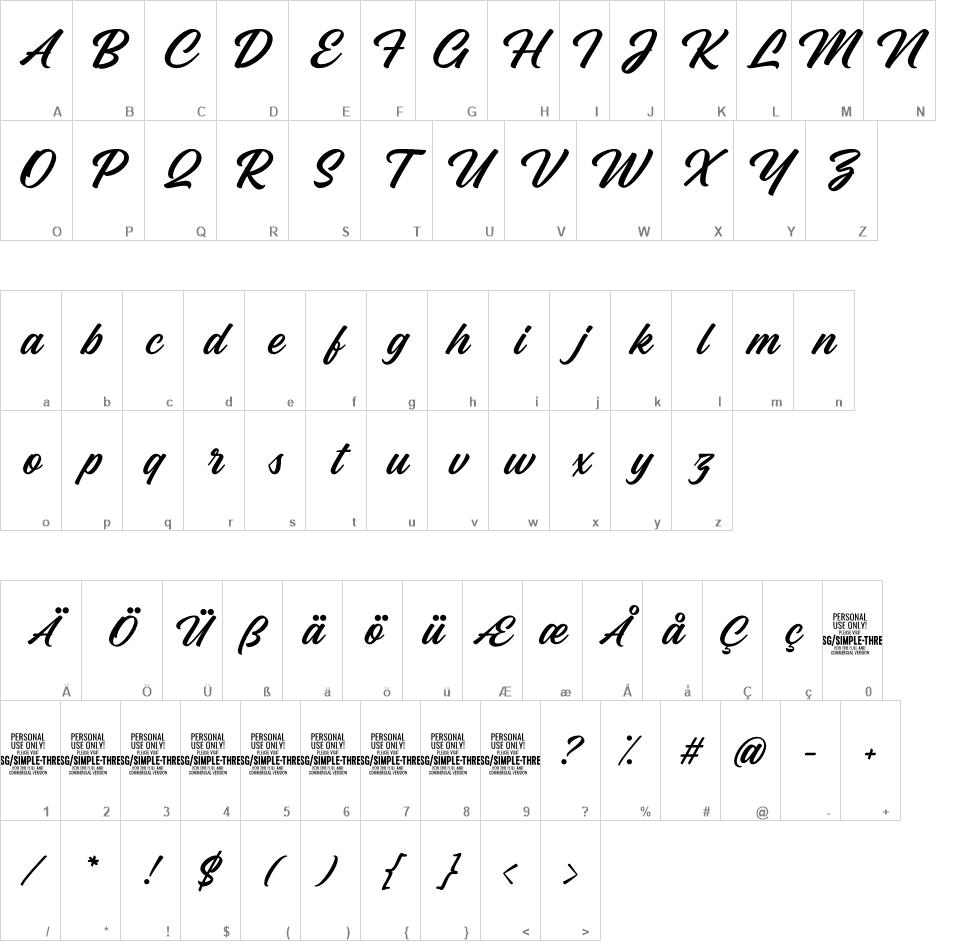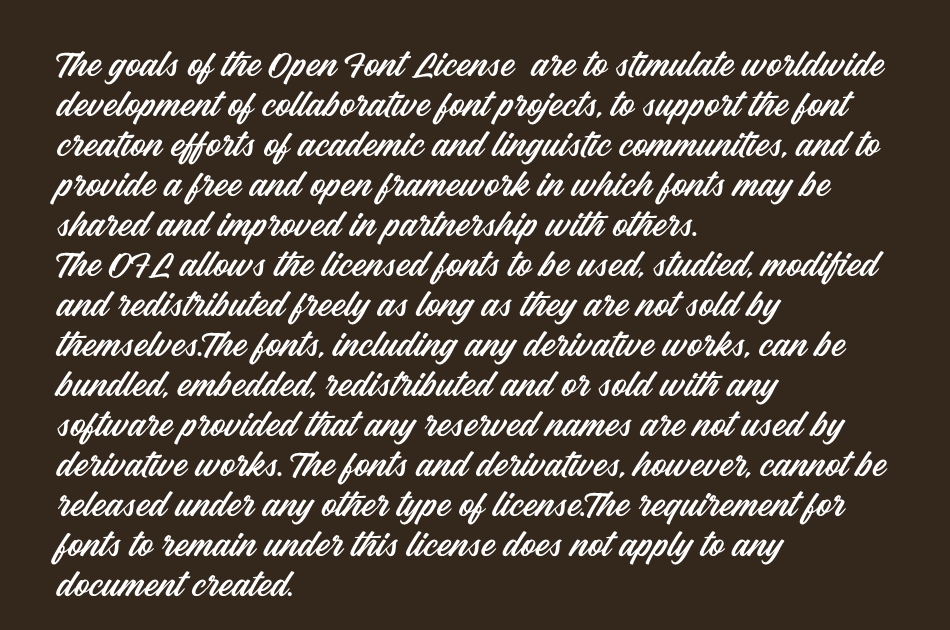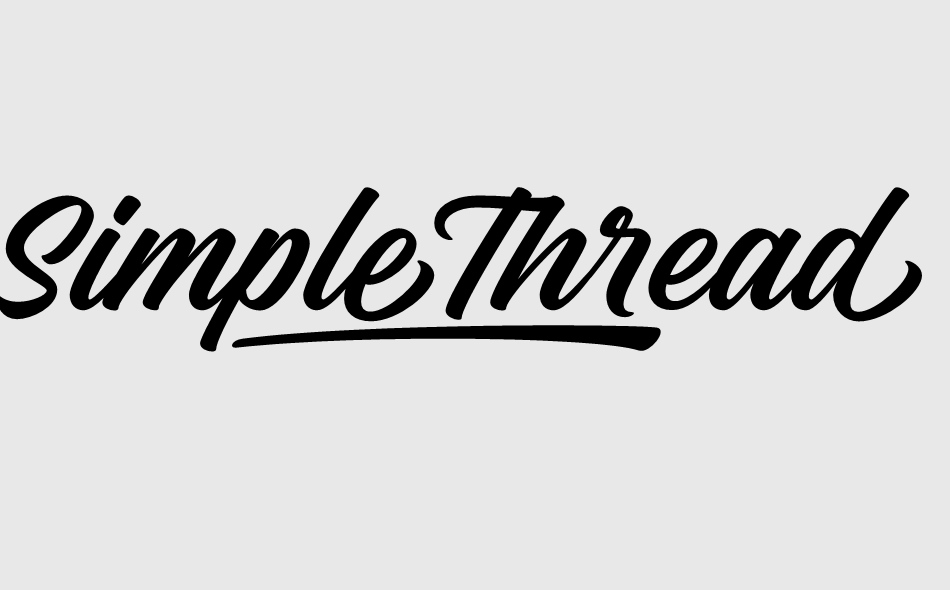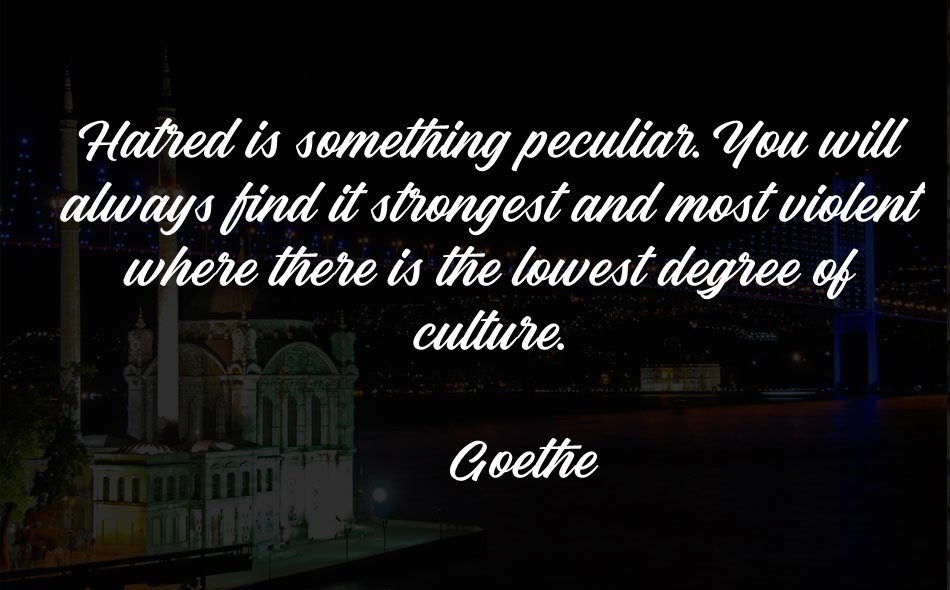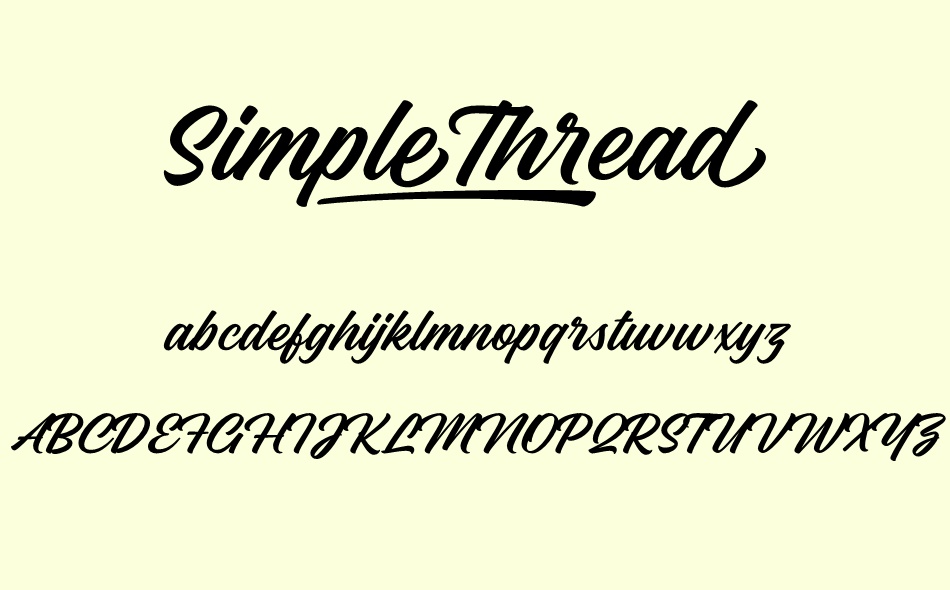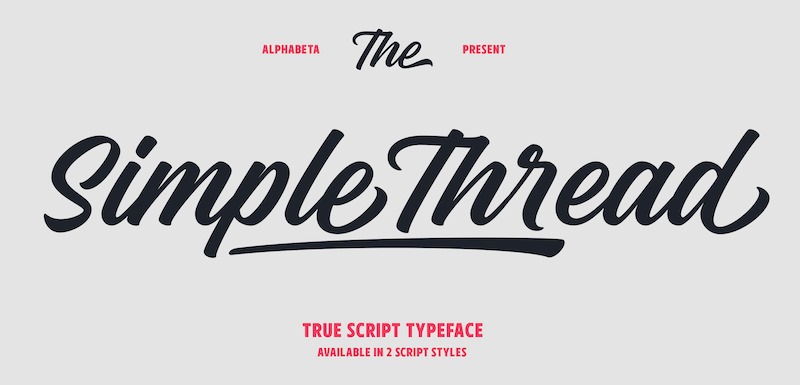
Simple Thread font
Use underscore _ anywhere in a word to make an underline.
Example: Love_letter
Use multiple underscores to make different swashes.
Example: Base_____ball
Use numbersign # after any letter to make a swash.
Example: Hello# Welcome#
Simple Thread is a beautifully bold script typeface.
Drawn and created between 2020 to 2022, this logotype lettering has a distinct style and a strong personality. It has an optimistic expression and a controlled but vivid movement, tailored for a cool and modern graphic.
Use underscore _ anywhere in a word to make an underline. Example: Love_letter
Use multiple underscores to make different swashes. Example: Base_____ball
The typeface family consist of Regular and Italic.
The font is built with advanced OpenType functionality and has a guaranteed top-notch quality, containing stylistic and contextual alternates, ligatures and more features; all to give you full control and customizability. It has extensive lingual support, covering all Latin-based languages, from Northern Europe to South Africa, from America to South-East Asia. It contains all characters and symbols you'll ever need, including all punctuation and numbers.